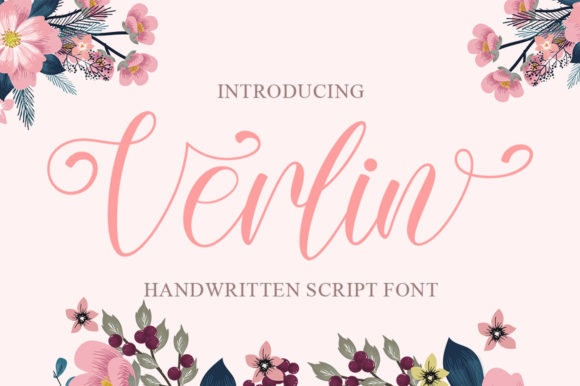
Verlin Font
Behold Verlin, a remarkable script font family that weaves enchantment into every letter and character! Designed with meticulous care by the visionary Nirmala Creative, Verlin is an embodiment of elegance, delicacy, and romantic flair. Whether you're crafting breathtaking wedding invitations, cherishable cards, or embarking on a creative journey, Verlin is the perfect font to elevate your designs with an air of sophistication and charm.
With its captivating curves and flowing lines, Verlin effortlessly adds a touch of personalized magic to your creations. It's PUA encoded, making it incredibly user-friendly, so you can effortlessly access all of the glyphs and swashes, expanding your design possibilities. Unleash your creativity and let Verlin's beauty enhance your projects, transforming them into masterpieces of elegance and allure.
Verlin's versatility knows no bounds! Whether you're designing logos, heartfelt invitations, menus, quotes, product packaging, or any other project that craves a romantic, hand-lettered touch, Verlin will effortlessly elevate your vision and leave a lasting impression on your audience. Its refined and joyful nature lends itself seamlessly to various projects, ensuring that your designs exude a timeless charm and captivate all who behold them.
Embrace Verlin, the ultimate font for those seeking elegance and enchantment! Its delicate strokes and graceful flourishes will infuse your creations with a touch of romance and sophistication, making every project a true work of art. Experience the magic of Verlin today and elevate your designs to new heights of beauty and elegance!